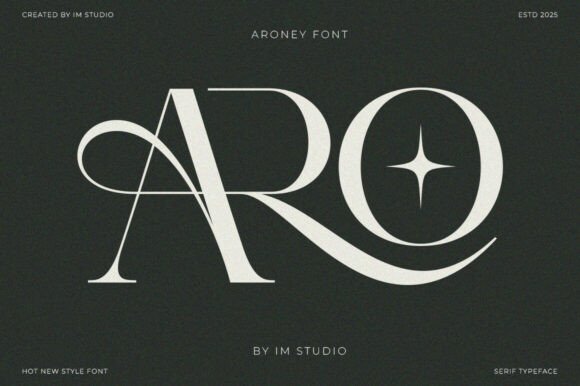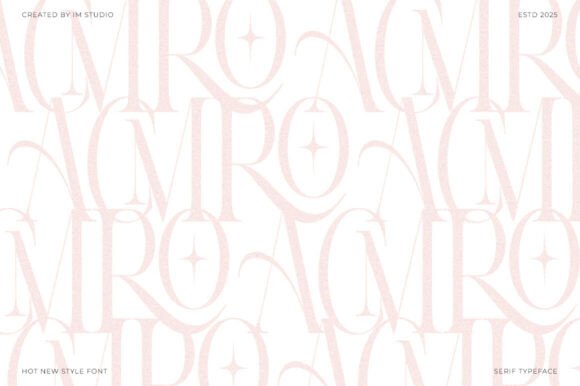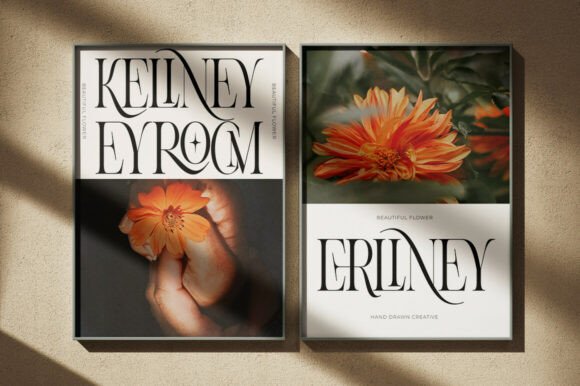
Introduction to Aroney Font
Ignite your brand with the Aroney Family Typeface, a unique amalgamation of elegance and creativity.
This serif font is specially crafted with the essence of our rich experience in forming visual identities for diverse businesses The Aroney Family Typeface meets the ever-growing demand for an exclusive typographic style that boasts classiness while maintaining uniqueness.
Key Features of Aroney Font
Why Choose Aroney Font?
Aroney Font offers exceptional quality and versatility, making it a valuable addition to your design toolkit. Whether you’re creating for personal projects or commercial use, Aroney Font delivers professional results.